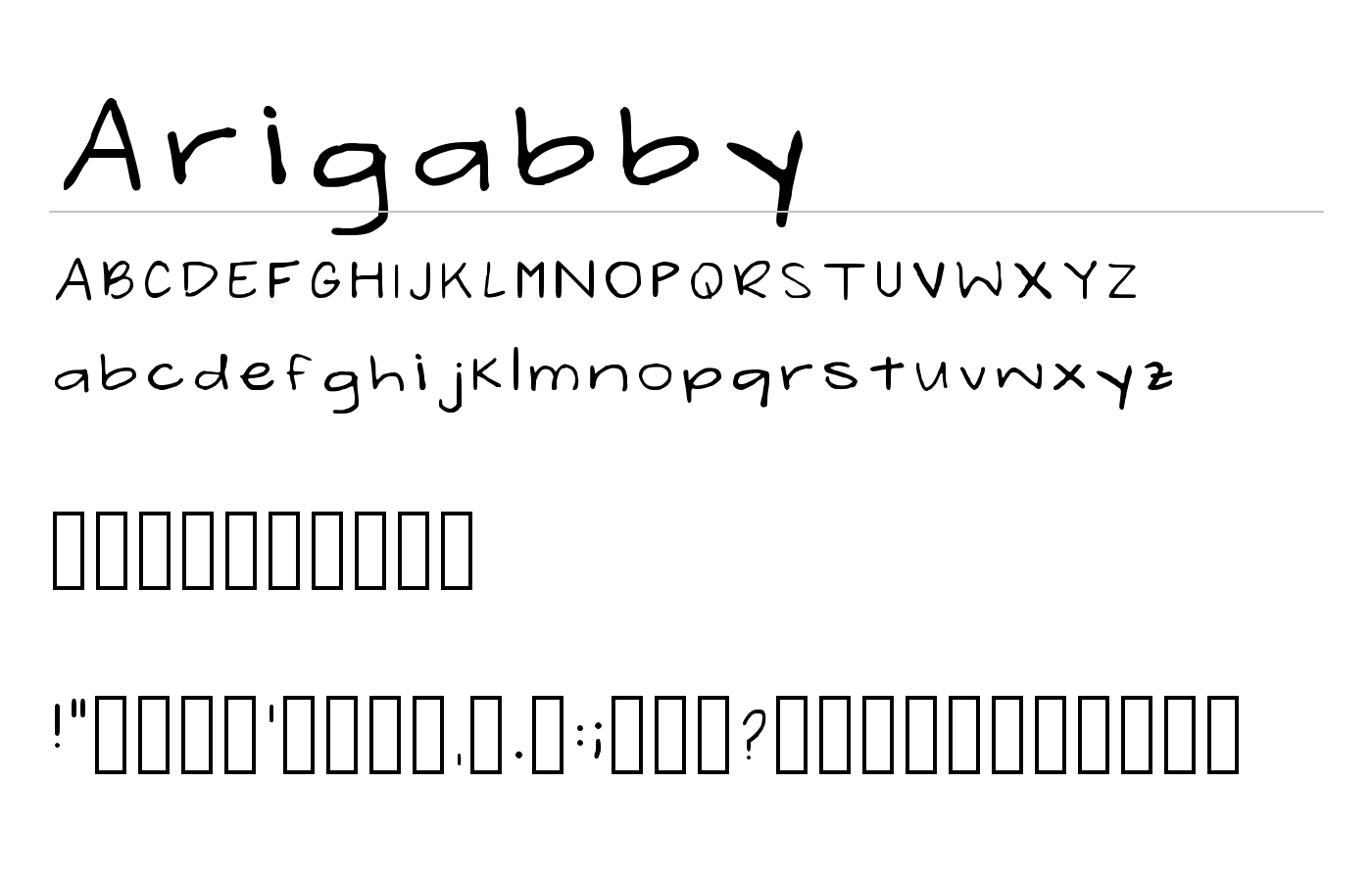
Arigabby is a playful handwritten sans serif font with a casual, friendly vibe. Its irregular, slightly uneven strokes and simple rounded forms give it a natural, approachable feel, making it ideal for creative projects, informal branding, or children's materials. This font works well in headlines or short text where a personal, lively touch is desired.
Arigabby Font
About Arigabby Font